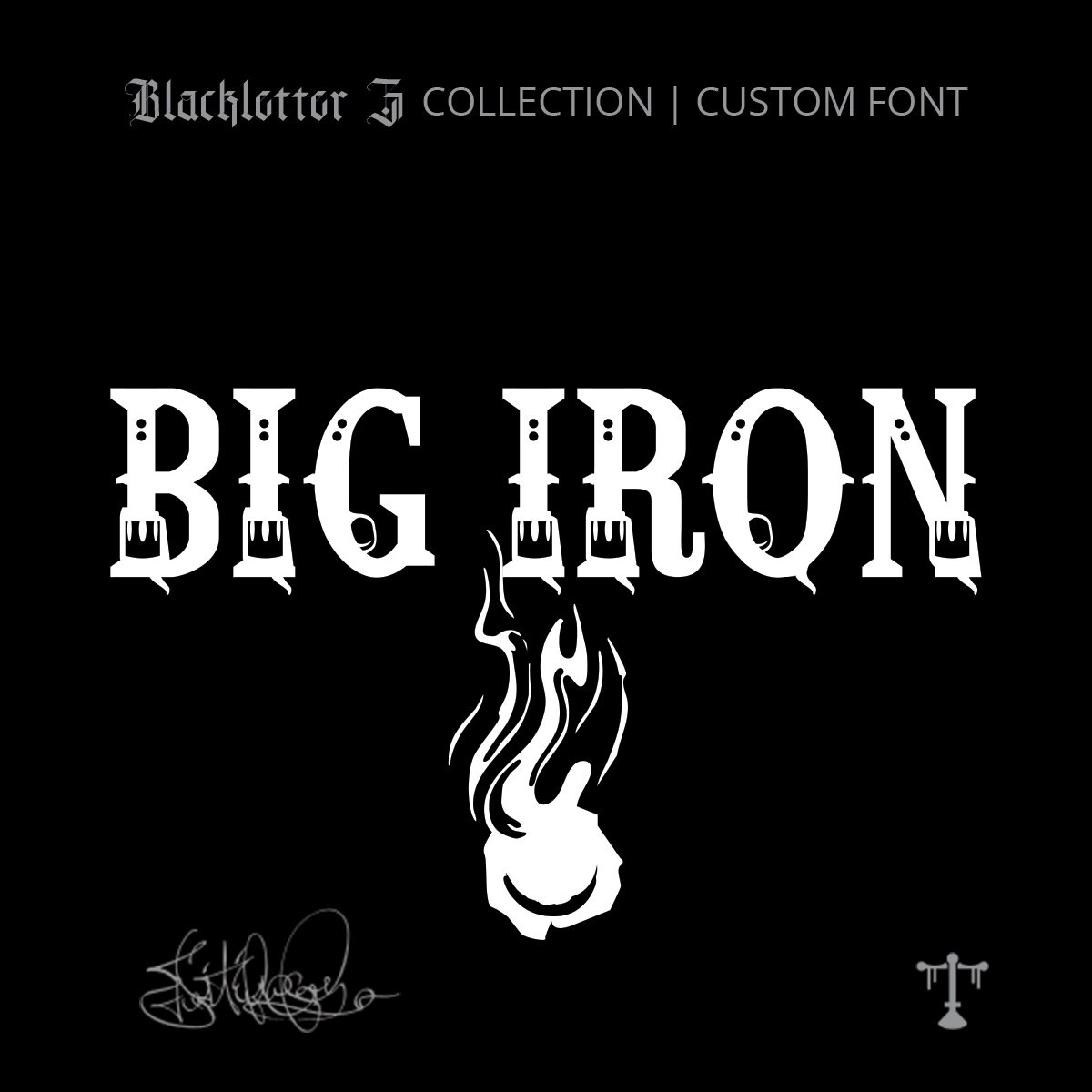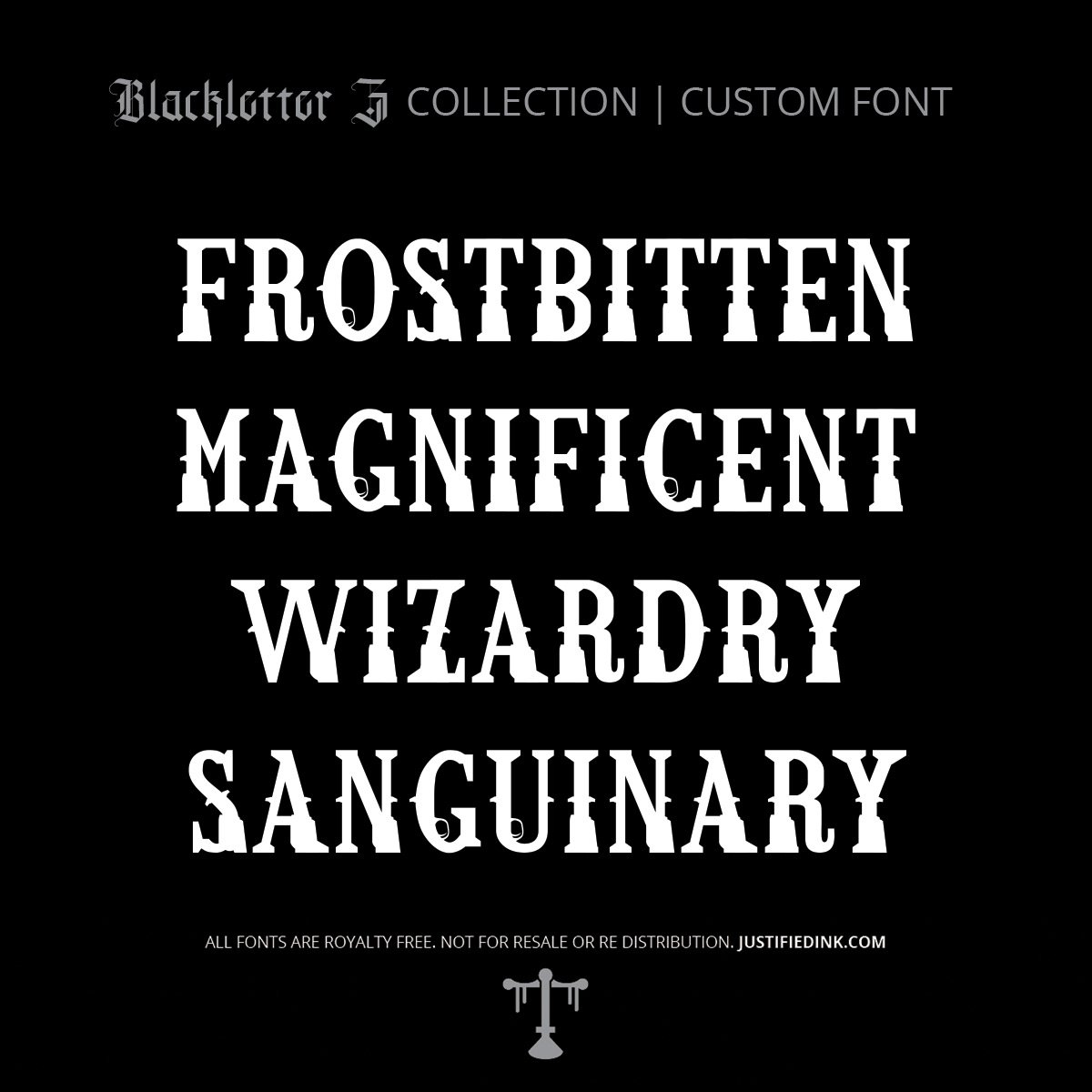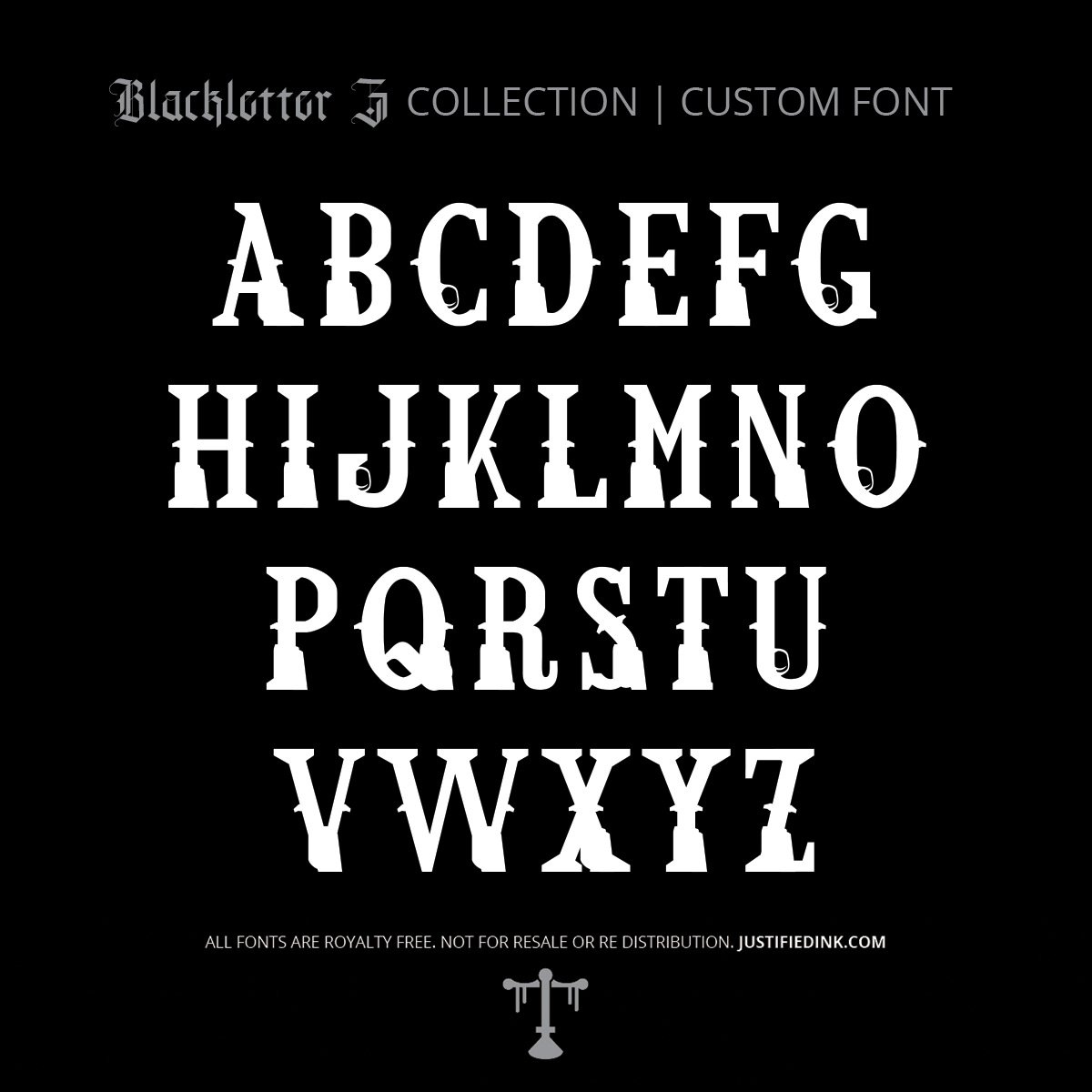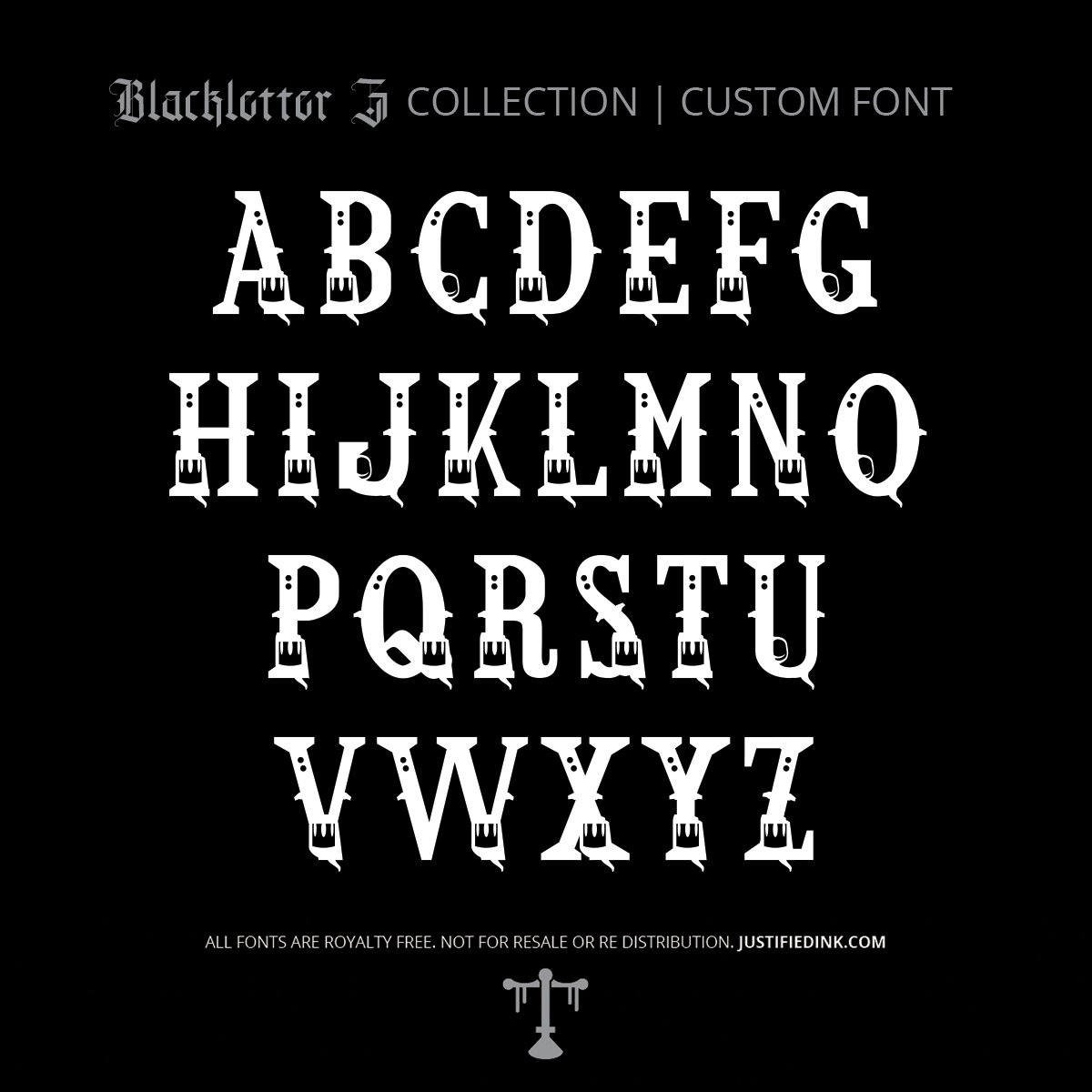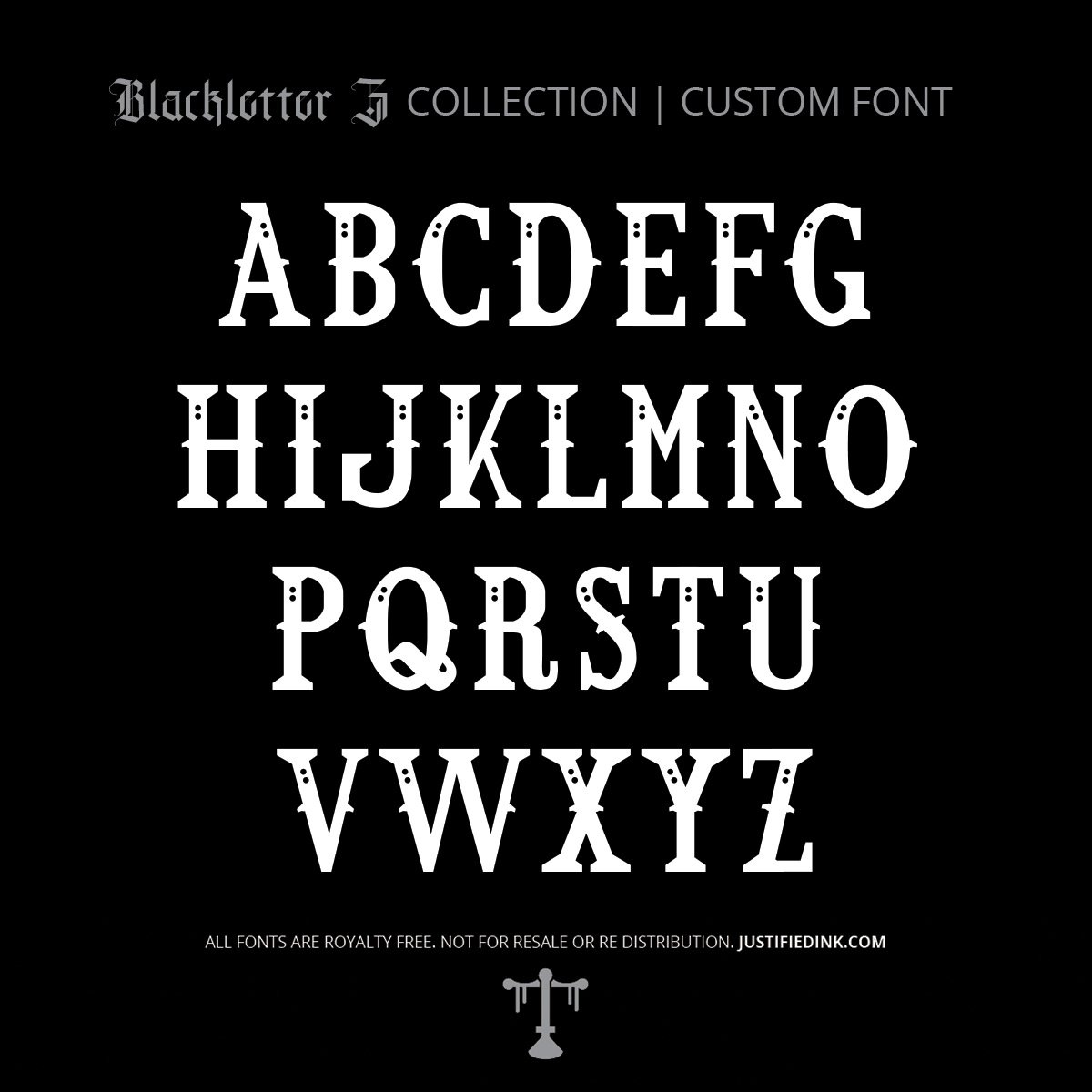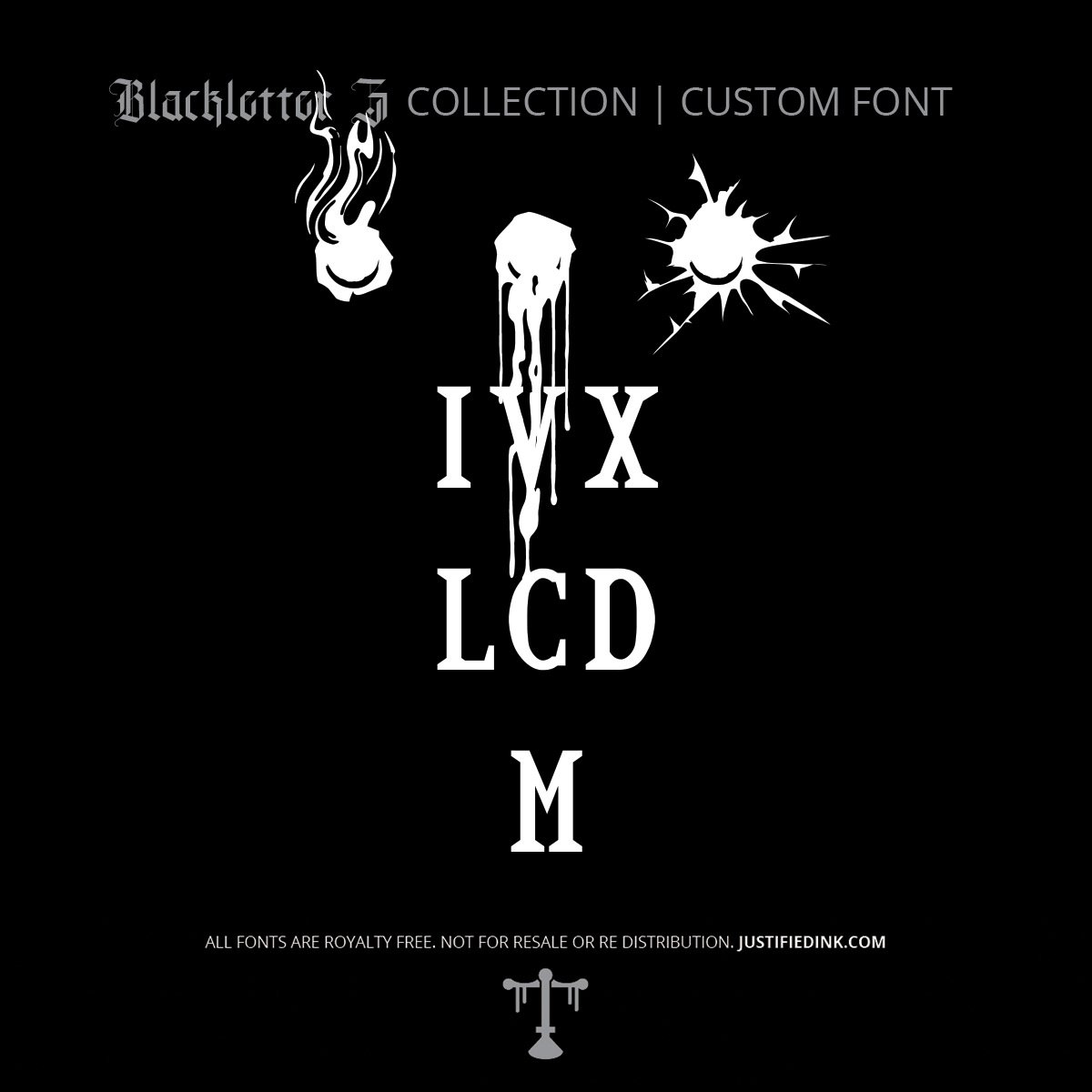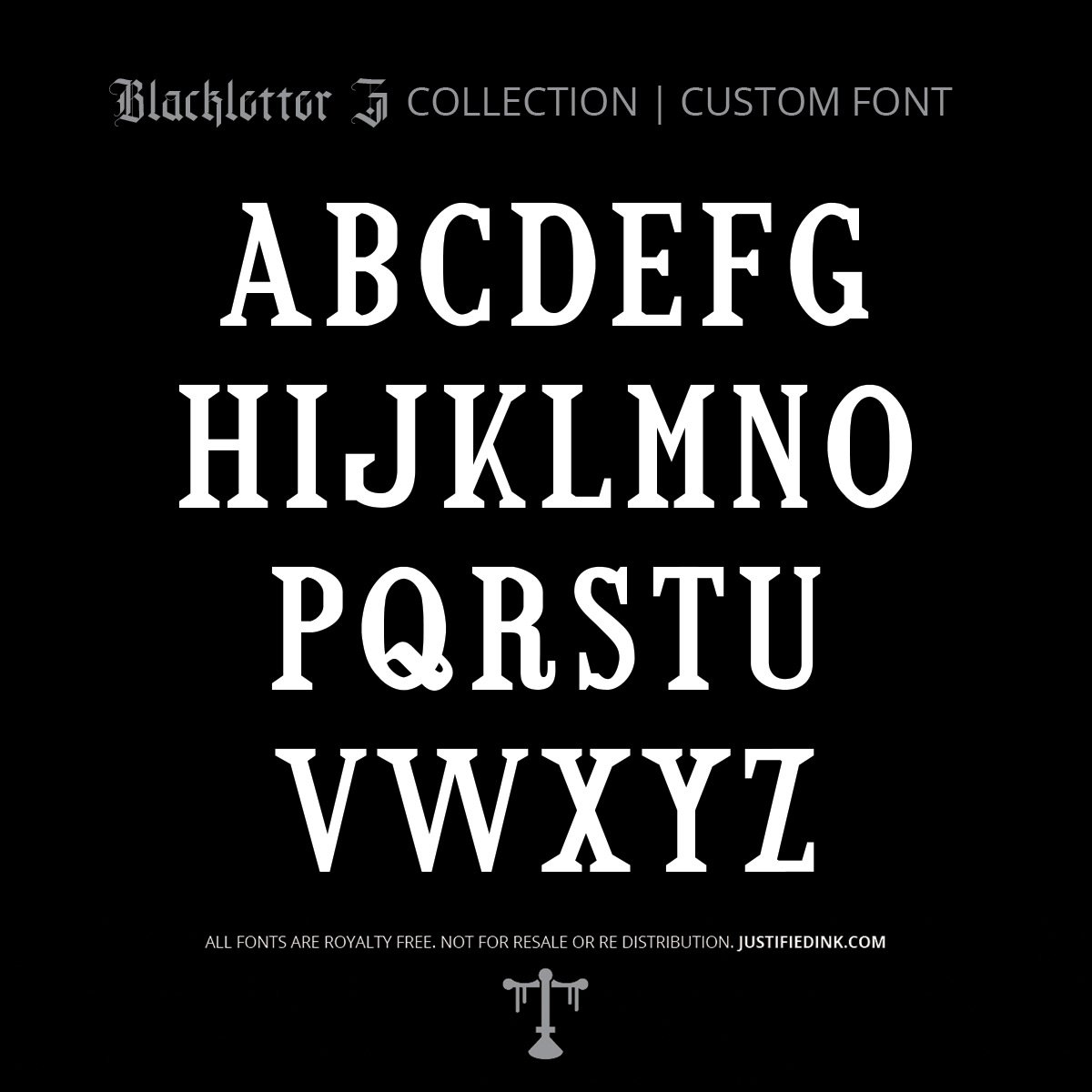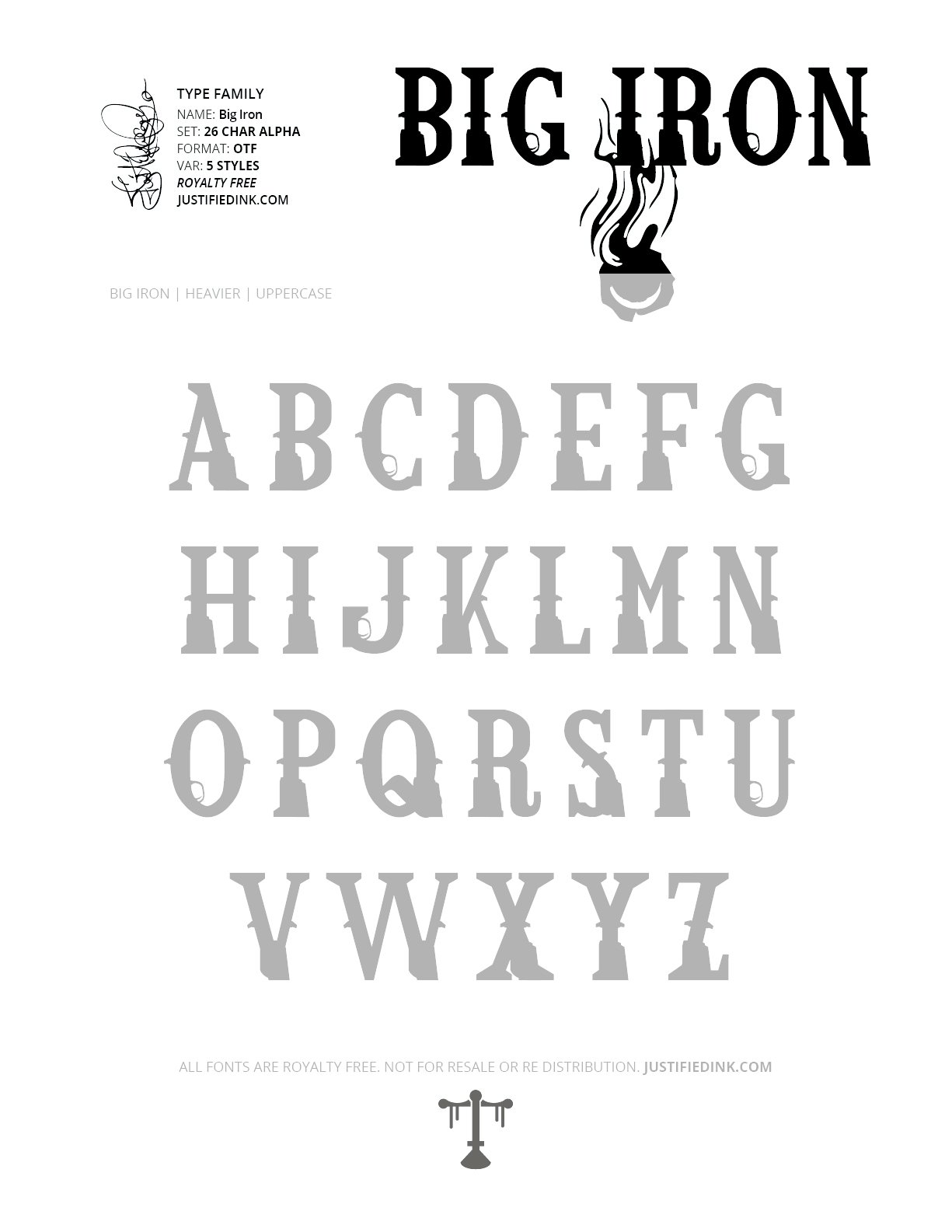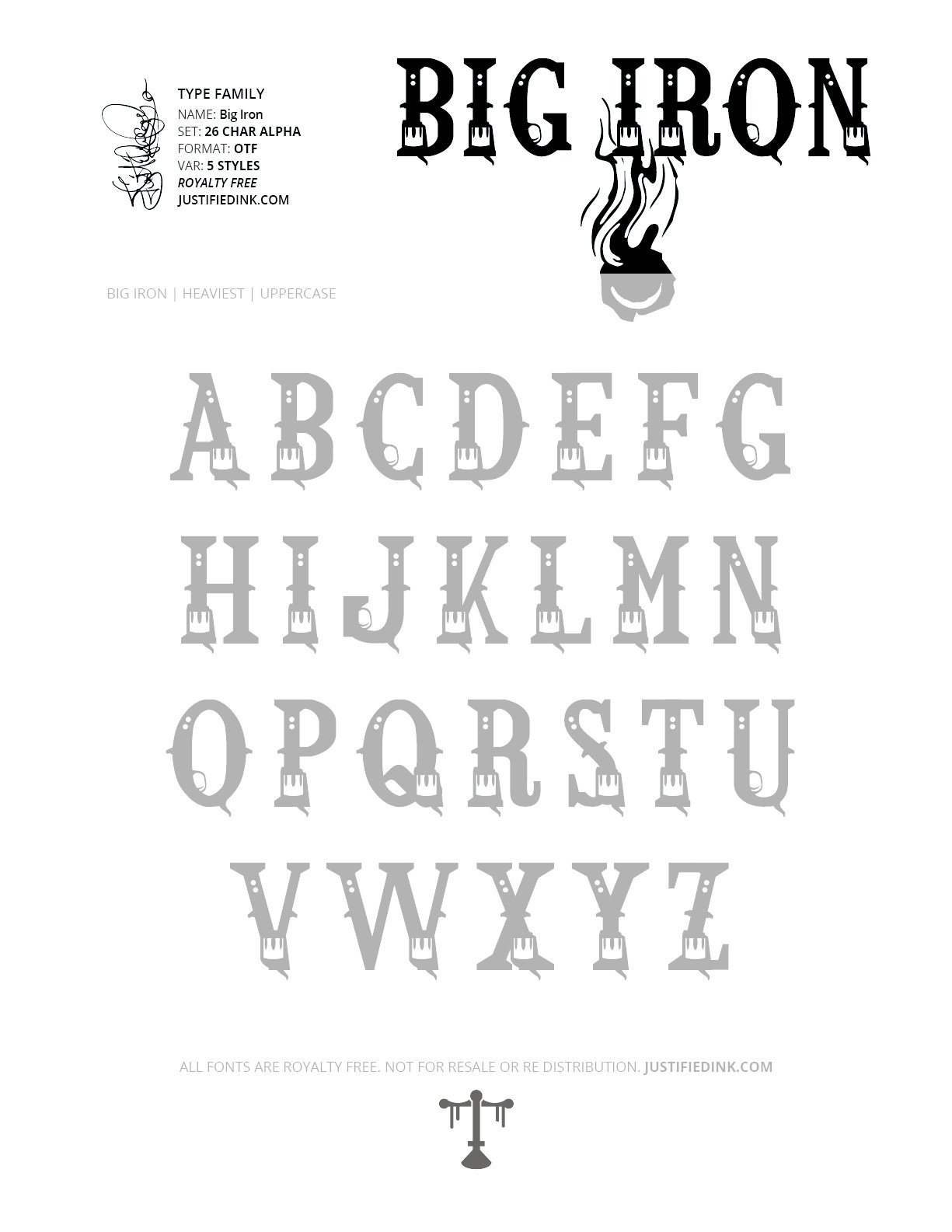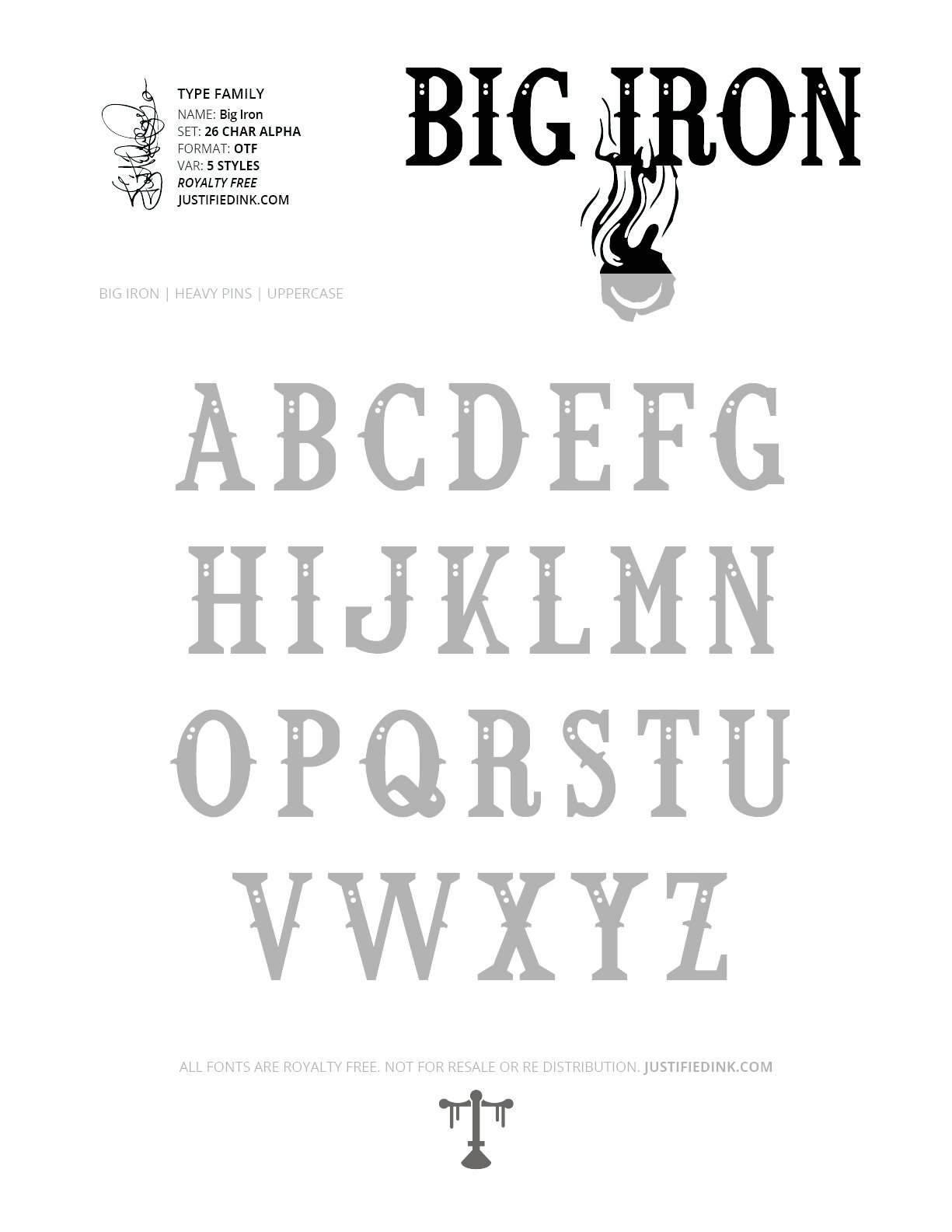
Big Iron (5 styles) - Custom Font
Big Iron (5 Styles) - Custom Font
The Legend of the Big Iron
Big Iron rides in with the dust of the open range. This slab serif western font draws from the visual language of spaghetti westerns, gunfighter ballads, hand-painted signs, and the hard-edged lettering of an older frontier. Bold, upright forms give it the weight of forged steel, while its proportions carry the unmistakable character of the American West.
The five styles of Big Iron progressively build upon the foundation, adding sharper details and increasingly elaborate decorative elements. Each variation was constructed from shapes and parts inspired by a real Big Iron shooter, transforming the silhouette of a legendary sidearm into a visual language for letterforms. The result is a type family that moves from rugged and restrained to ornate and unmistakably western.
Big Iron is part of Justified Ink's growing collection of atmospheric and experimental lettering. Built from historical influences, physical objects, and the imperfections of hand-crafted typography, each style is an exploration of what happens when familiar forms are pushed somewhere new.